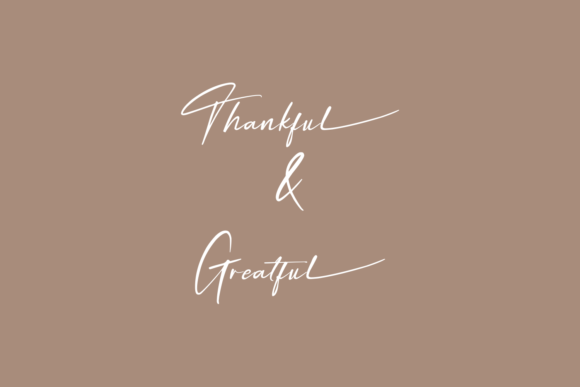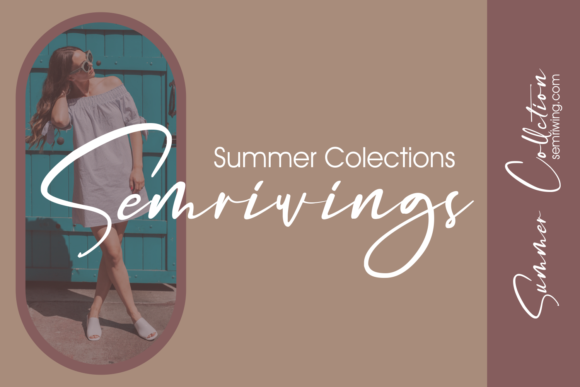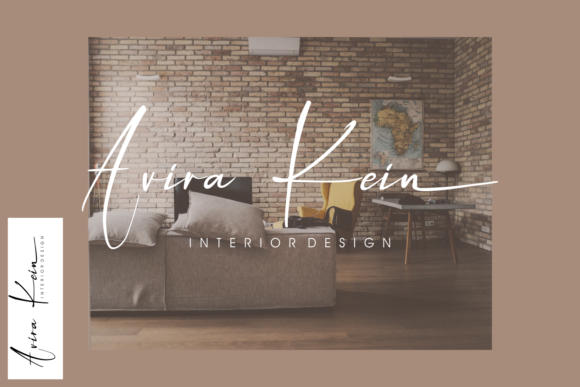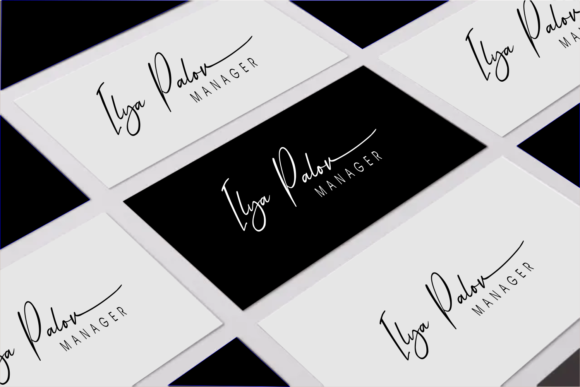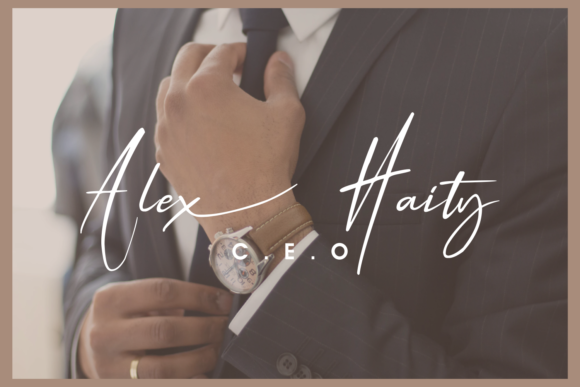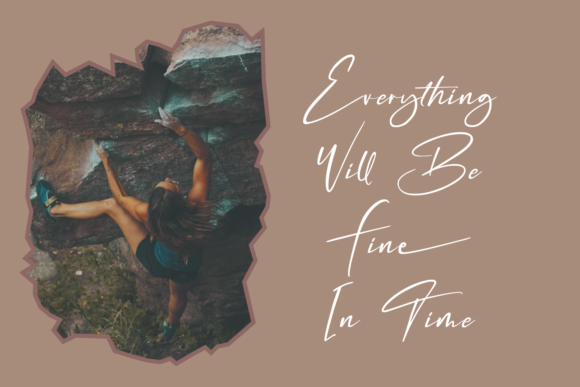
About Something Wrong Font
Something Wrong is a beautiful and light handwritten font, featuring a unique feel and a stunning impact. It will add a luxury spark to any design project that you wish to create! This font is PUA encoded which means you can access all of the amazing glyphs and ligatures with ease!